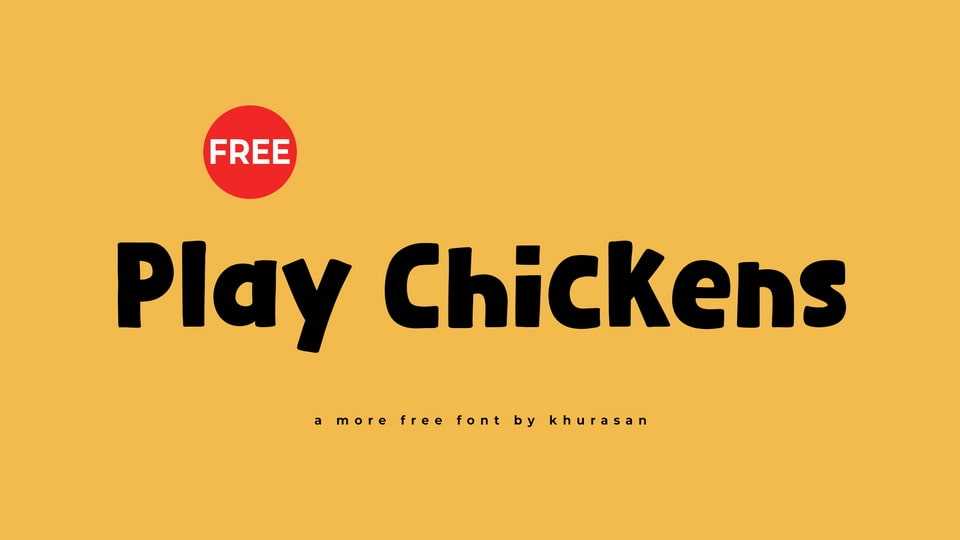
Download Play Chickens font, a playful, handcrafted typeface that bursts with quirky personality and charm. Each letter is full of unexpected twists and lively shapes.